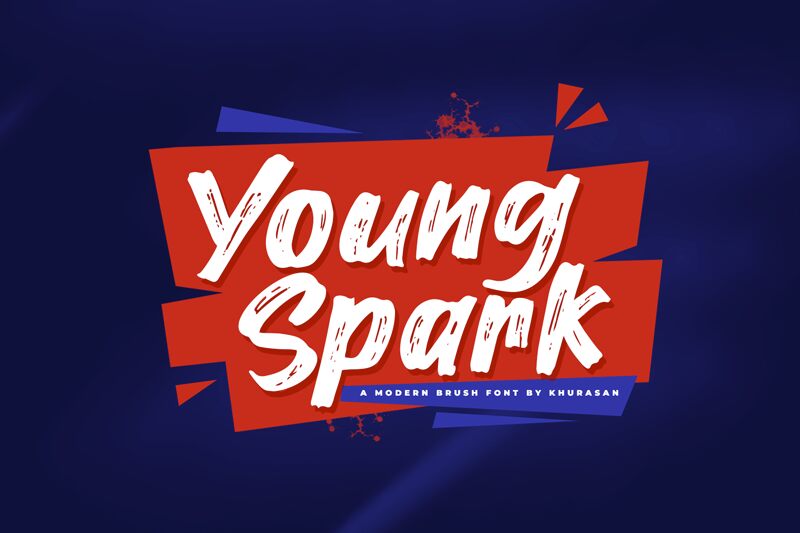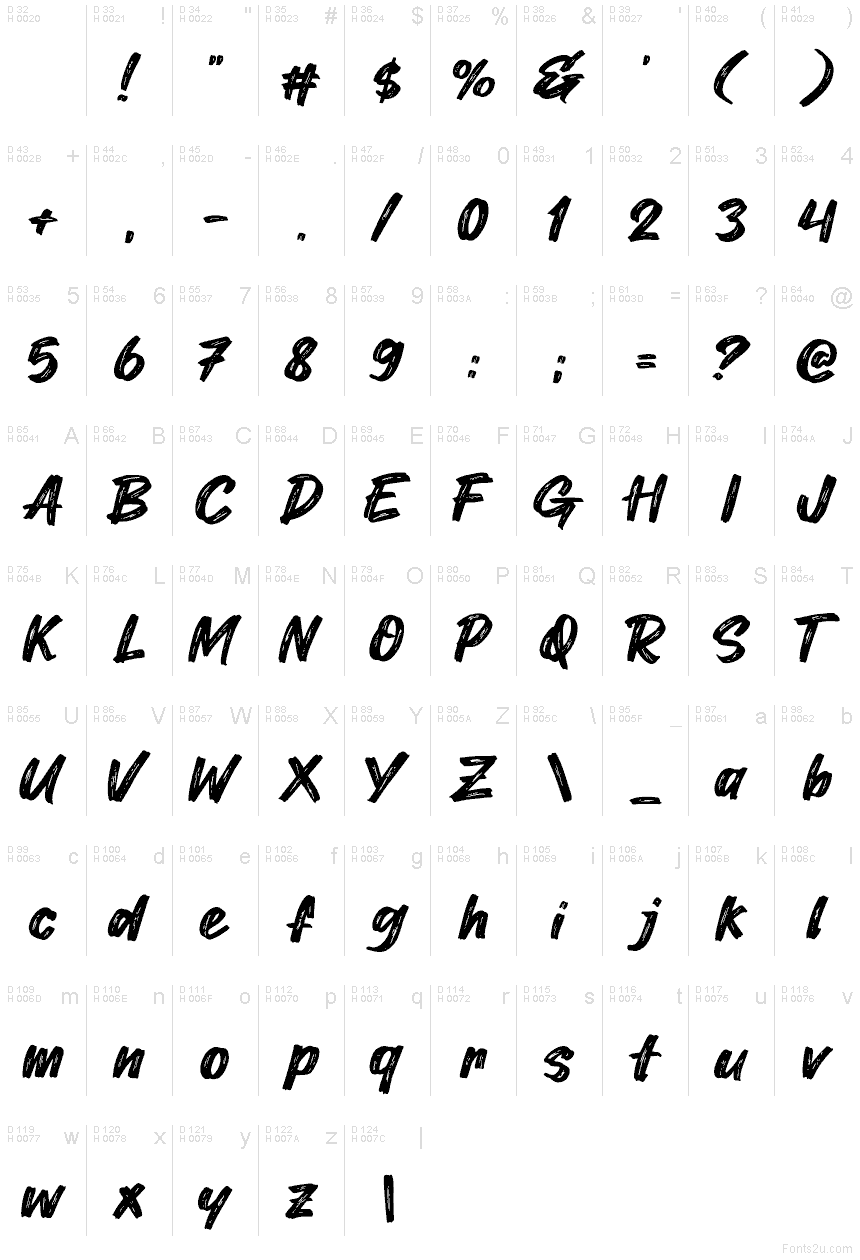
Young Spark font is a free brush handwritten typeface by Khurasan. It has an expressive and energetic look with its thick round strokes, casual style, and condensed design that’s constructed in a bold manner for maximum visibility.
Use it today in posters, typography titles, branding projects, log designs, product labels and packaging designs. Other possible uses include website fronts as well as prints for clothes and accessories.